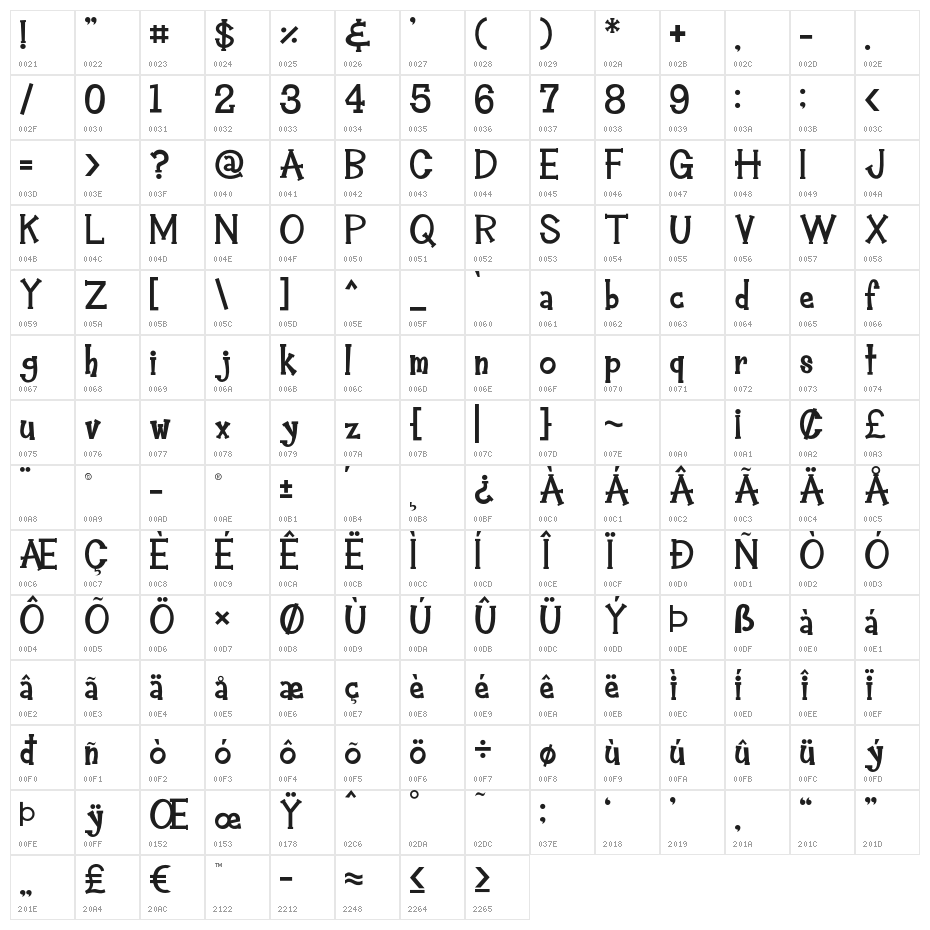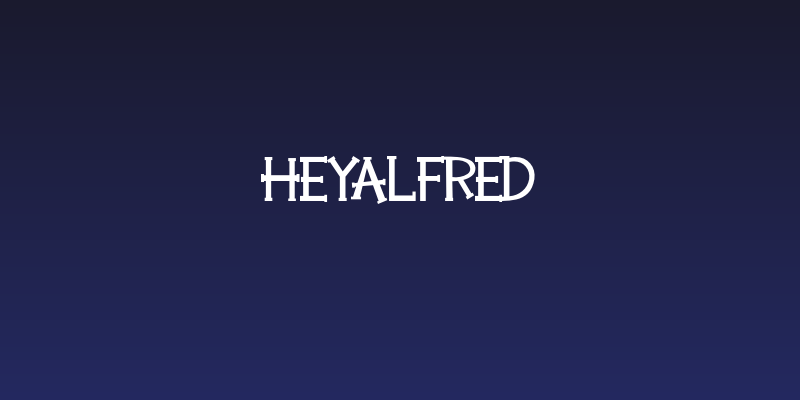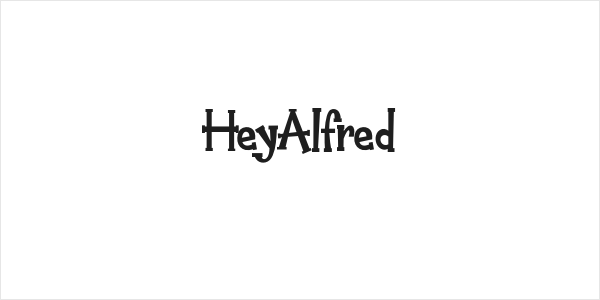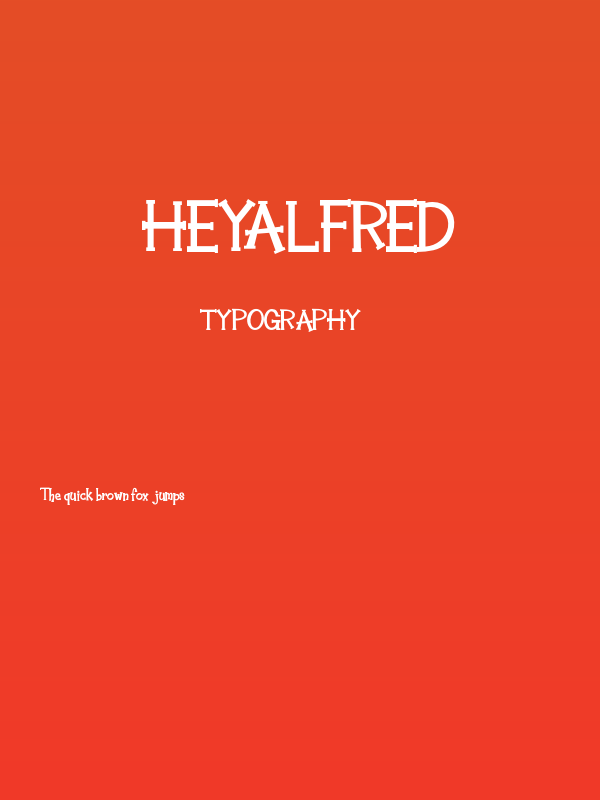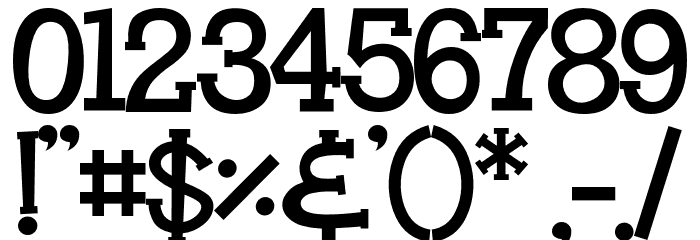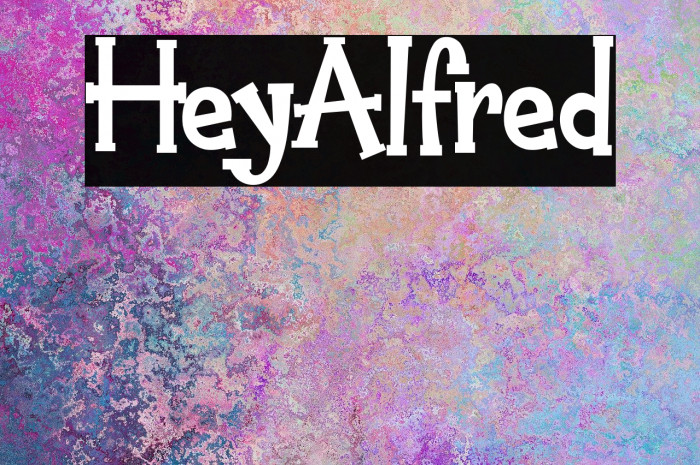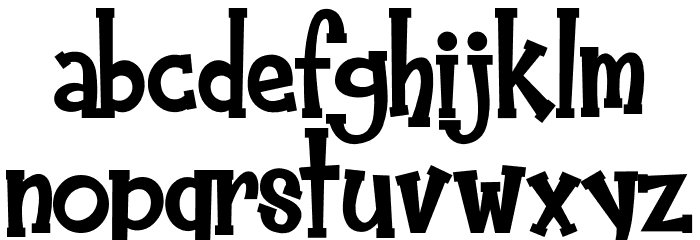
HeyAlfred Font
HeyAlfred Description
This font features a playful and bold style with a unique, slightly whimsical character design. The uppercase letters are tall and narrow, with exaggerated serifs that give them a distinctive flair. The lowercase letters maintain a consistent style, with rounded edges and a slightly condensed appearance. Numbers are bold and clear, matching the overall playful theme. Special characters are creatively designed, adding to the font's charm. The font's overall appearance is both eye-catching and legible, making it suitable for various creative applications.
| Proposed Projects | Ideal for children's books, playful branding, posters, and creative advertising. |